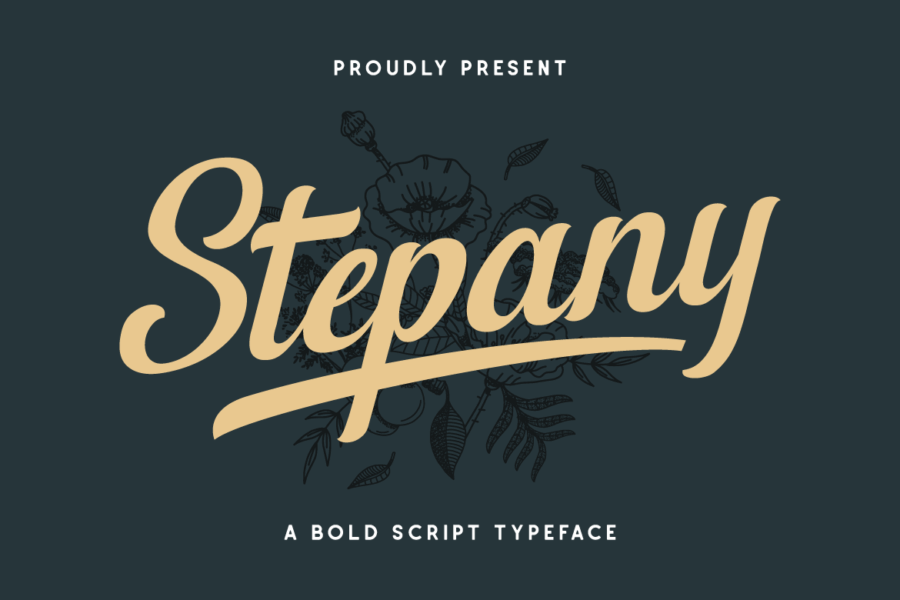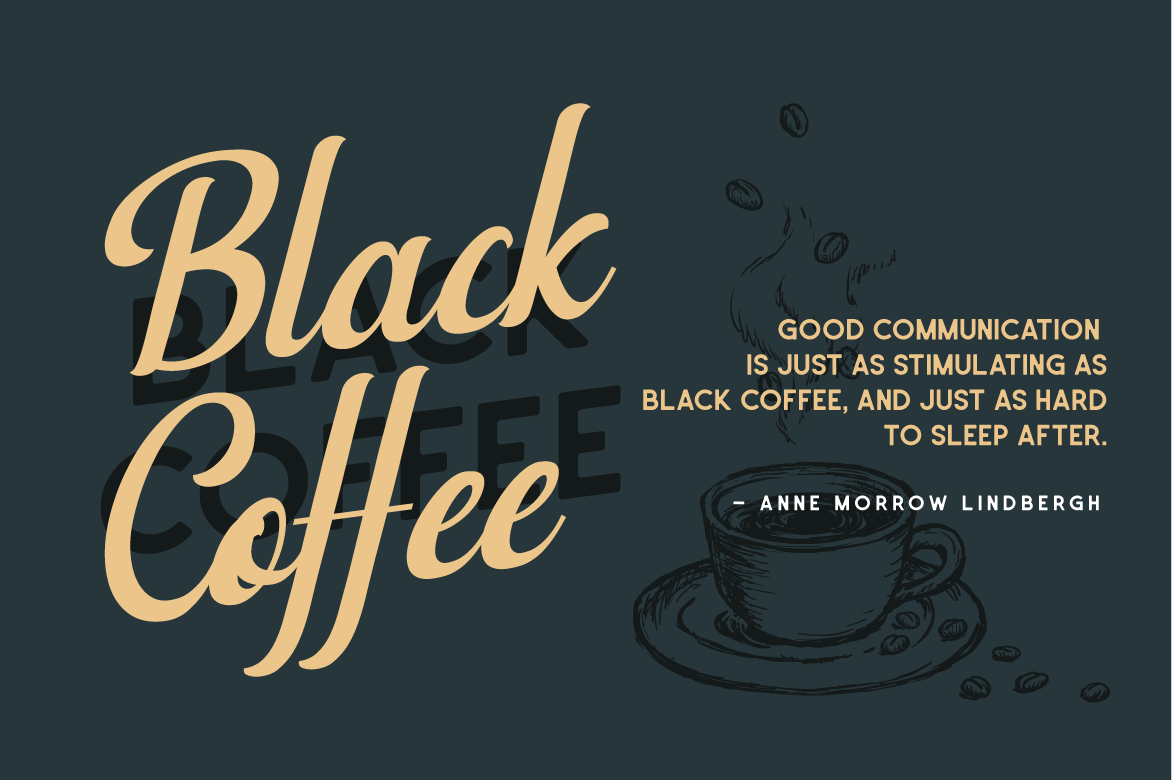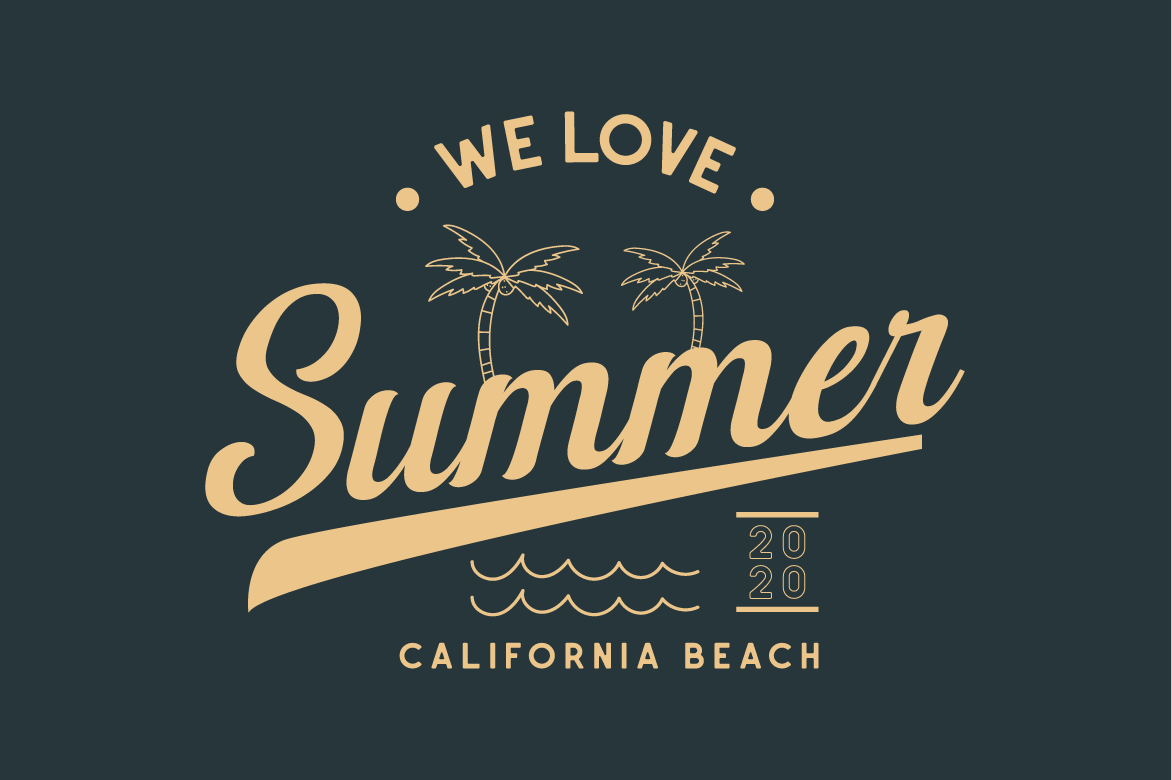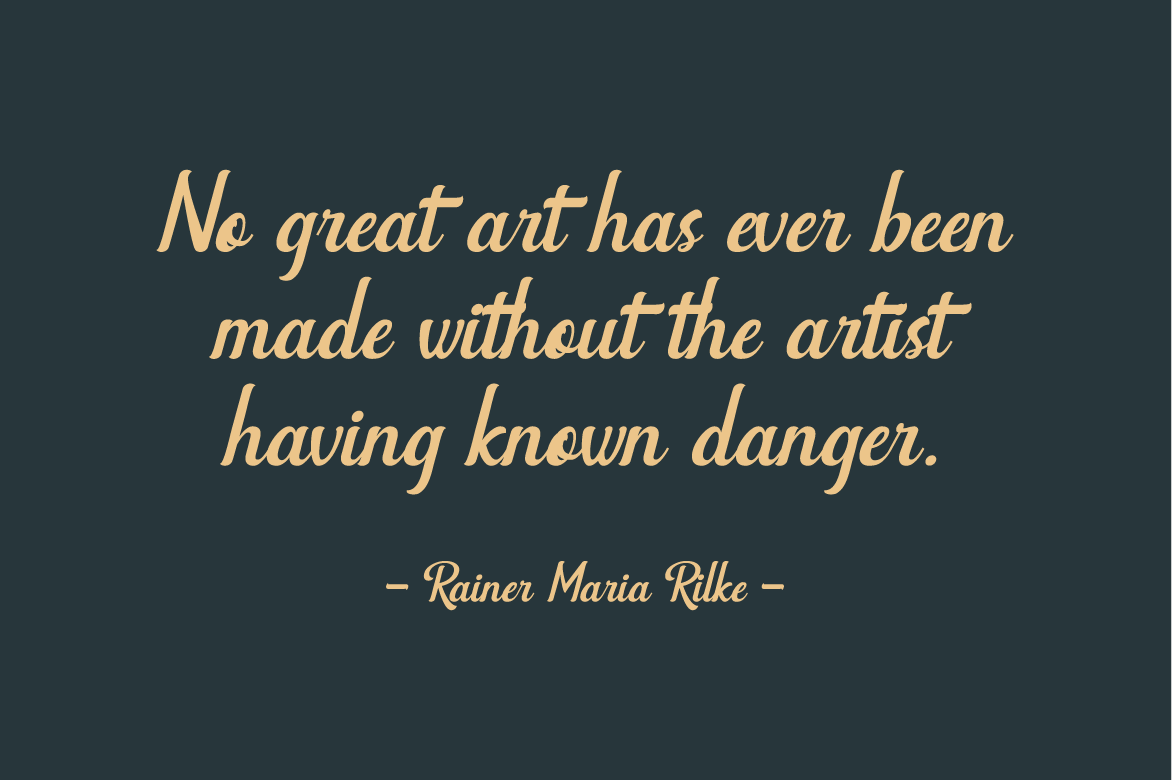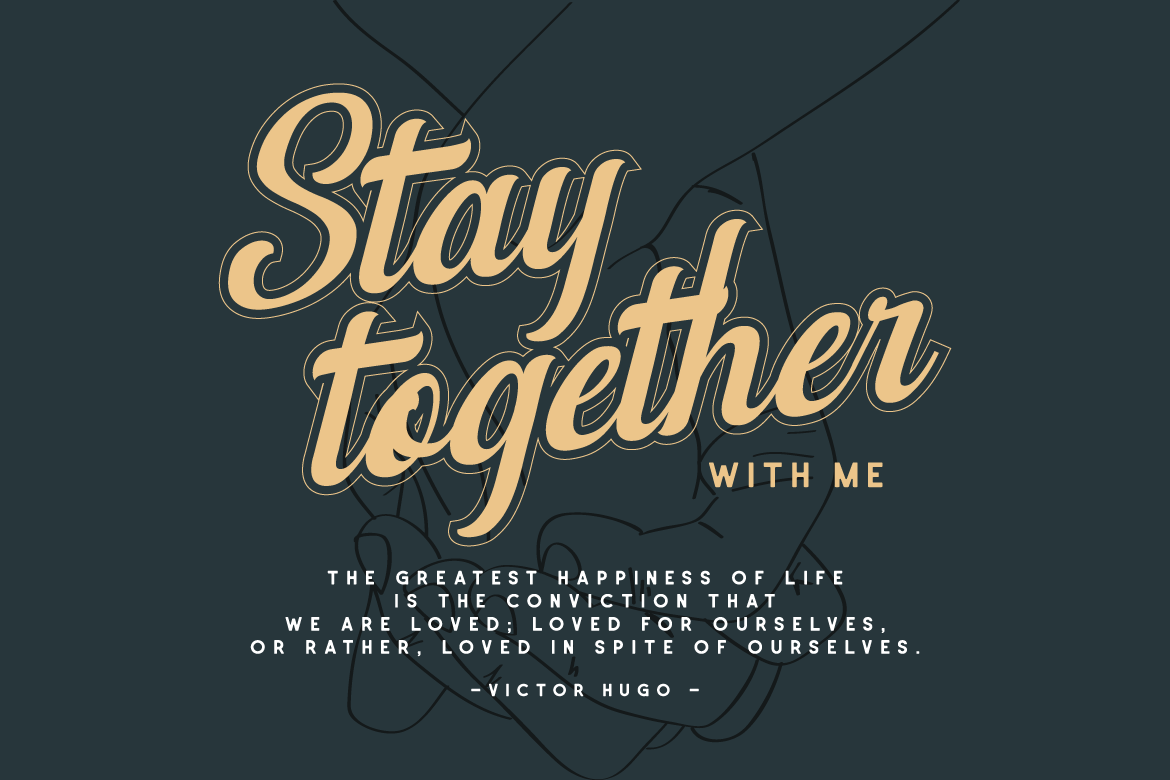
Stepany
Stepany is a bold and stylish script typeface that blends vintage flair with modern versatility. With its thick strokes, elegant curves, and smooth swashes, Stepany brings a confident, retro-inspired charm to your design projects. Ideal for logos, packaging, apparel, or bold headlines, this font delivers strong personality while staying easy to read.
Crafted with attention to flow and readability, Stepany is perfect for branding projects that need a touch of warmth and energy. Whether you’re creating a nostalgic coffee label, a beach-themed poster, or a romantic quote layout, Stepany’s expressive design ensures your message stands out beautifully.